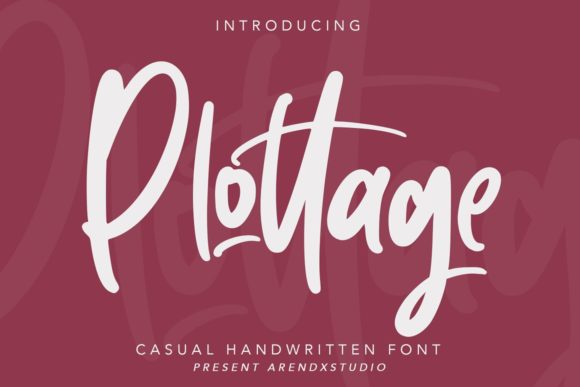
Introducing Plottage Font, the epitome of bold and beautiful handwritten typography designed to transform your creative visions into stunning realities. This captivating font family, crafted by the skilled hands at Arendxstudio, embodies the essence of calligraphy, blending the elegance of handwritten strokes with the precision of digital design.
Unleash your creativity with Plottage Font, a versatile masterpiece that effortlessly adapts to a myriad of design projects. Its bold, thick letters possess a unique charm, adding an instant touch of sophistication and flair to your creations. Each character is meticulously crafted with smooth, flowing curves, exuding a sense of effortless grace and authenticity.
Picture your designs adorned with Plottage Font, where fashion branding takes on an elevated allure. Let your editorial layouts radiate with its timeless elegance, capturing the attention of your audience with its undeniable charm. With Plottage Font at your fingertips, the possibilities for captivating designs are endless.
Indulge in the limitless potential of Plottage Font and elevate your projects to new heights of artistry and impact. Experience the joy of bringing your design dreams to life with a font that speaks volumes, leaving an unforgettable impression on all who encounter it.